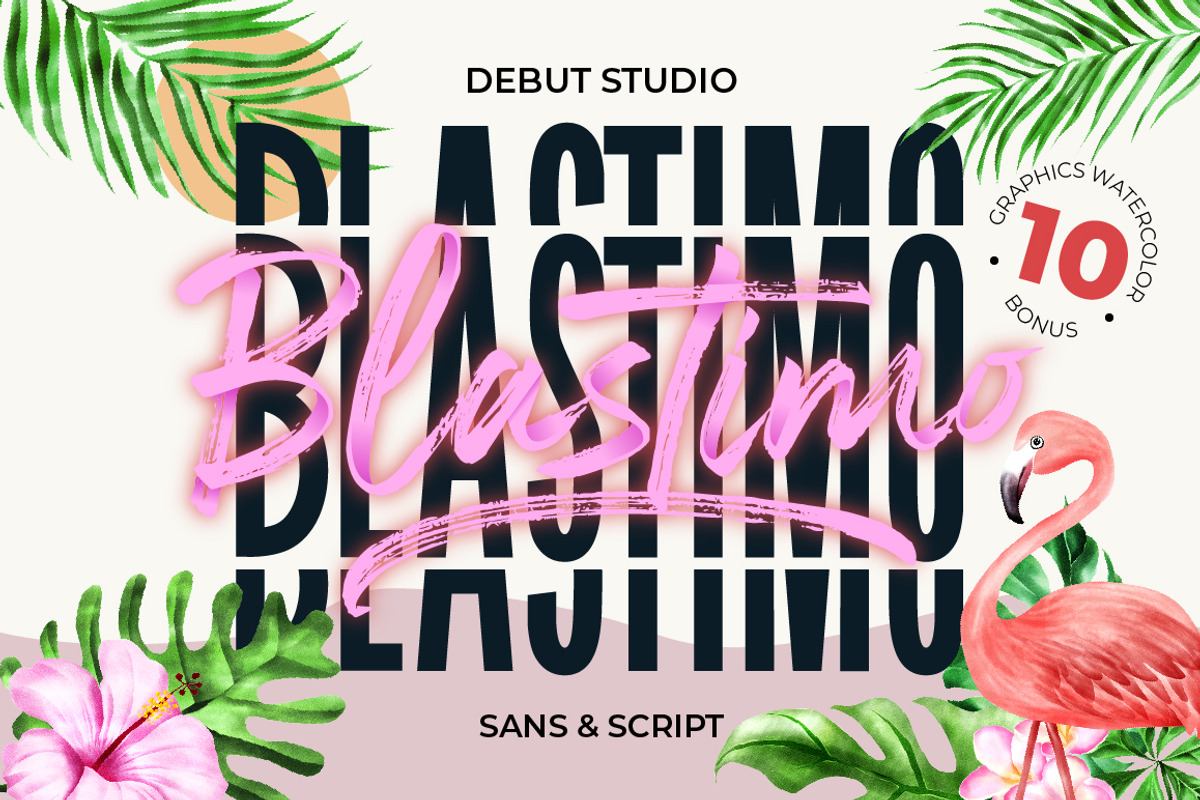
BLASTIMO SANS & SCRIPT Free Download
BLASTIMO SANS & SCRIPT Font Free Download
BLASTIMO SANS & SCRIPT Font Free Download is a dynamic font duo that combines a bold sans-serif typeface with a stylish script font. This versatile set allows you to mix and match both fonts for your projects, giving you the flexibility to create modern, eye-catching designs with a touch of elegance and creativity.
The BLASTIMO SANS font features strong, clean lines and geometric precision, making it perfect for headlines, branding, and minimalist designs. The BLASTIMO SCRIPT font, on the other hand, offers elegant and flowing cursive letterforms that add a personal, handwritten touch to your typography, ideal for invitations, logos, and elegant accents.
Add style and versatility to your designs with BLASTIMO SANS & SCRIPT Font Free Download, and create modern, sophisticated typography that stands out with both strength and elegance. Perfect for designers seeking a dynamic font duo for creative projects.